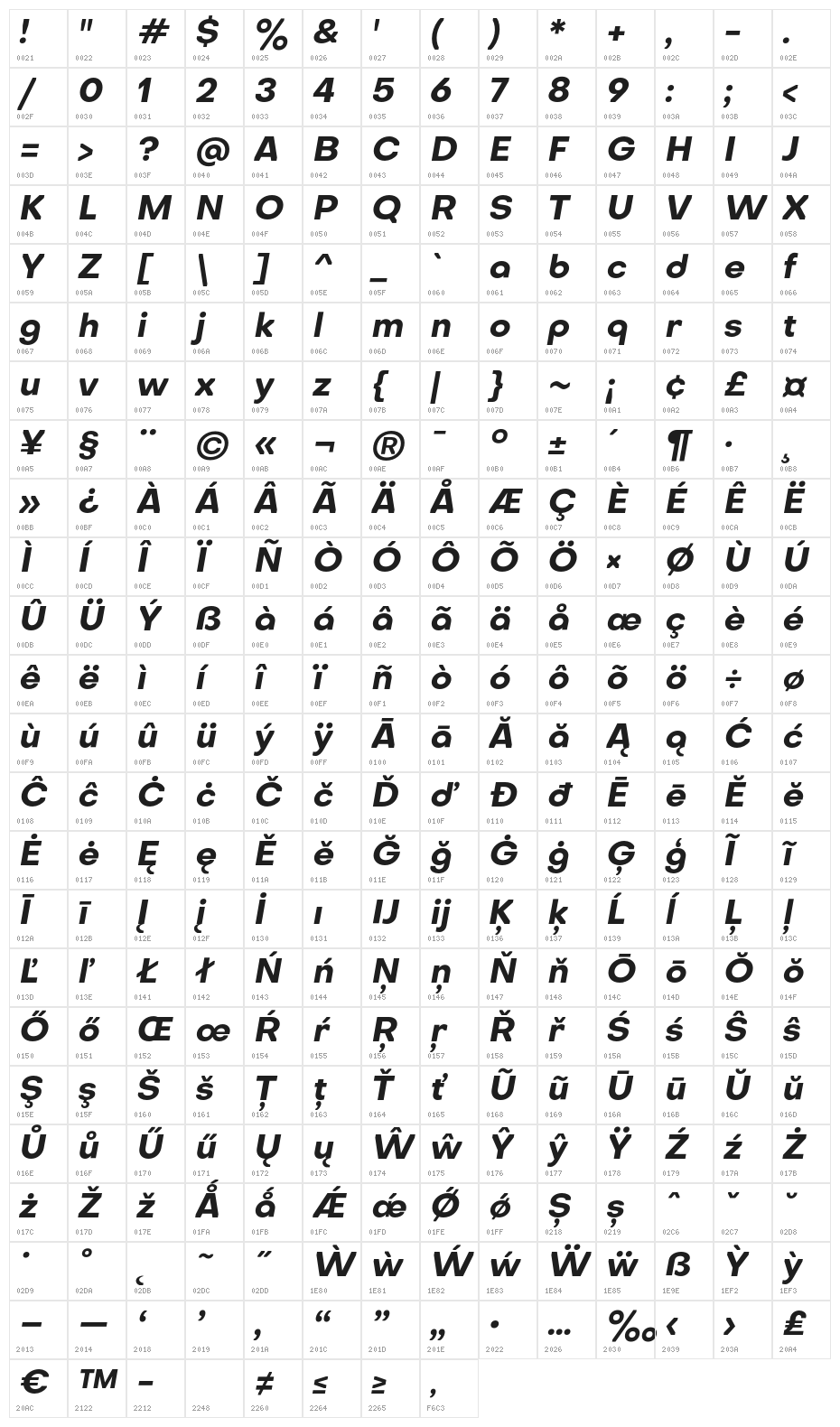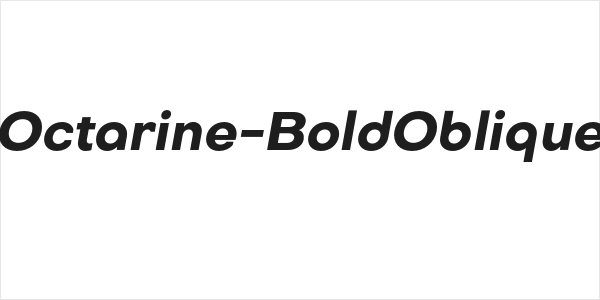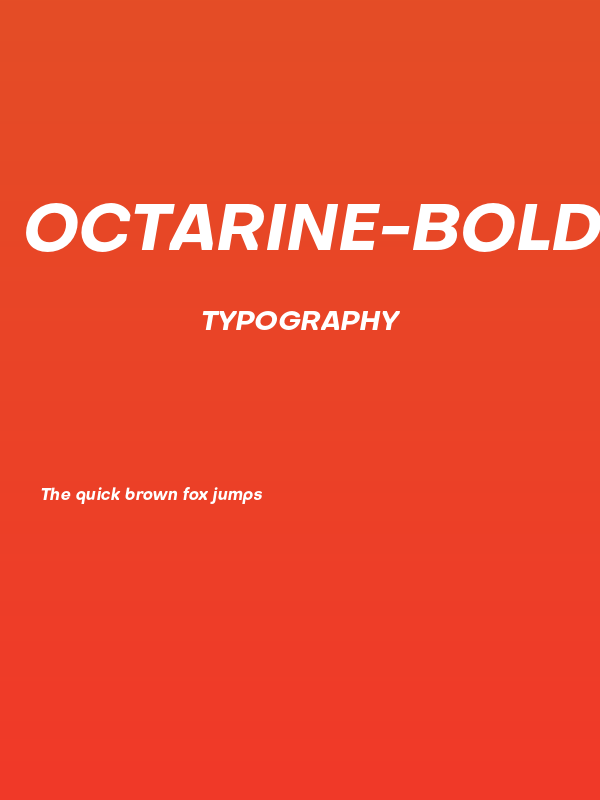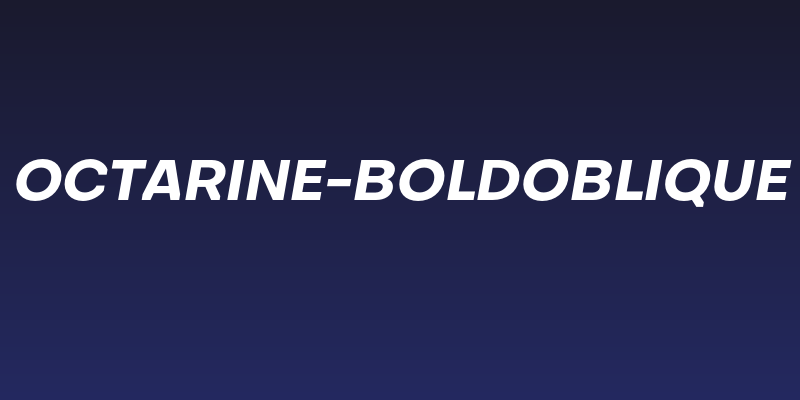
Octarine-BoldOblique Font
Octarine-BoldOblique Description
This typeface exhibits a bold and dynamic presence with its oblique style, giving a sense of movement and modernity. The characters are well-defined with a consistent stroke width, providing a clean and robust appearance. The uppercase and lowercase letters maintain a uniform slant, enhancing the font's cohesive look. Numerals are clear and easily distinguishable, while the special characters are crafted to match the overall bold aesthetic. This font is designed to capture attention and convey a strong message, making it suitable for impactful design projects.
| Use Case | Headlines, Logos, Advertising |
| Proposed Projects | Ideal for branding, advertising, headlines, and any project requiring a strong visual impact. |